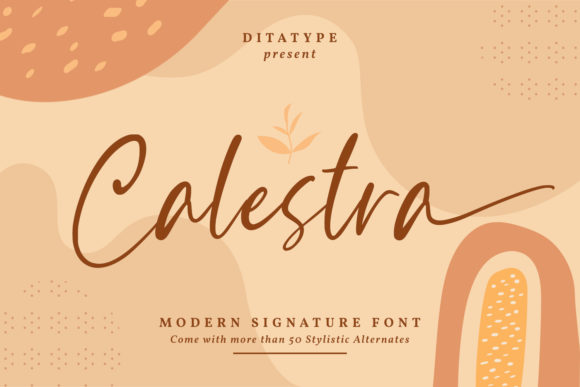
Prepare to be captivated by Calestra Font, a breathtaking handwritten font crafted with elegance and grace. Dive into a world of flowing strokes, gorgeous glyphs, and stunning alternatives that will transform your designs into masterpieces. Let your creativity soar as you explore the varying baselines and smooth lines that define this beautiful script font.
With Calestra Font at your fingertips, you'll discover a font that effortlessly blends classic calligraphy with a modern twist. Its contemporary and fresh feel ensures that your projects will stand out from the crowd, exuding an aura of sophistication and charm. Fall head over heels in love with this font and witness how it elevates your designs to new heights of brilliance.
Step into a world of endless possibilities with Calestra Font. Whether you're designing business cards, invitations, logos, or any other creative project, this font is your perfect companion. Its versatility knows no bounds, allowing you to effortlessly create designs that reflect your unique style and vision.
Make a lasting impression with Calestra Font, the ultimate choice for those seeking a font that exudes elegance, creativity, and professionalism. Don't miss out on the opportunity to add this masterpiece to your font collection. Experience the magic of Calestra Font today and embark on a creative journey unlike any other!